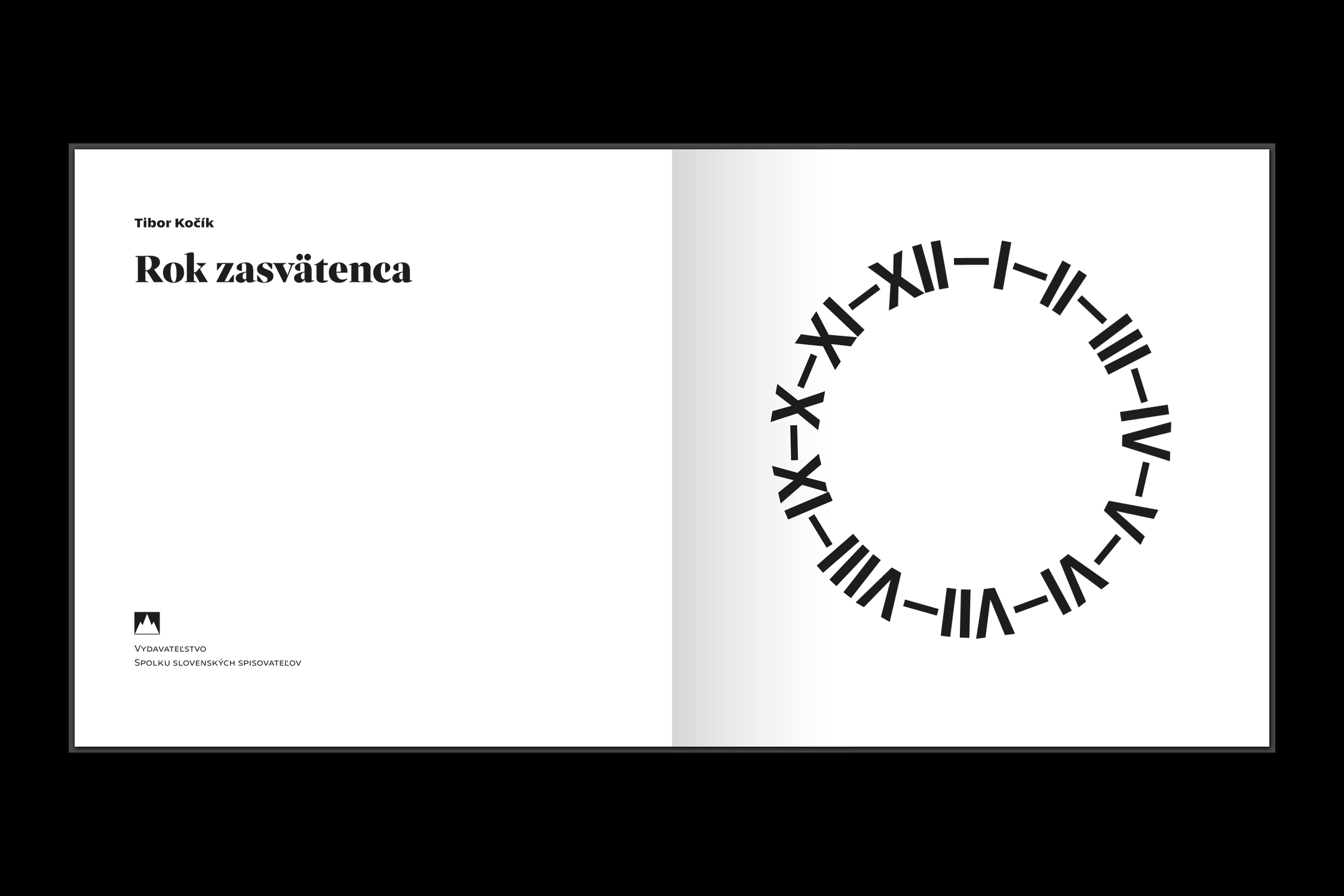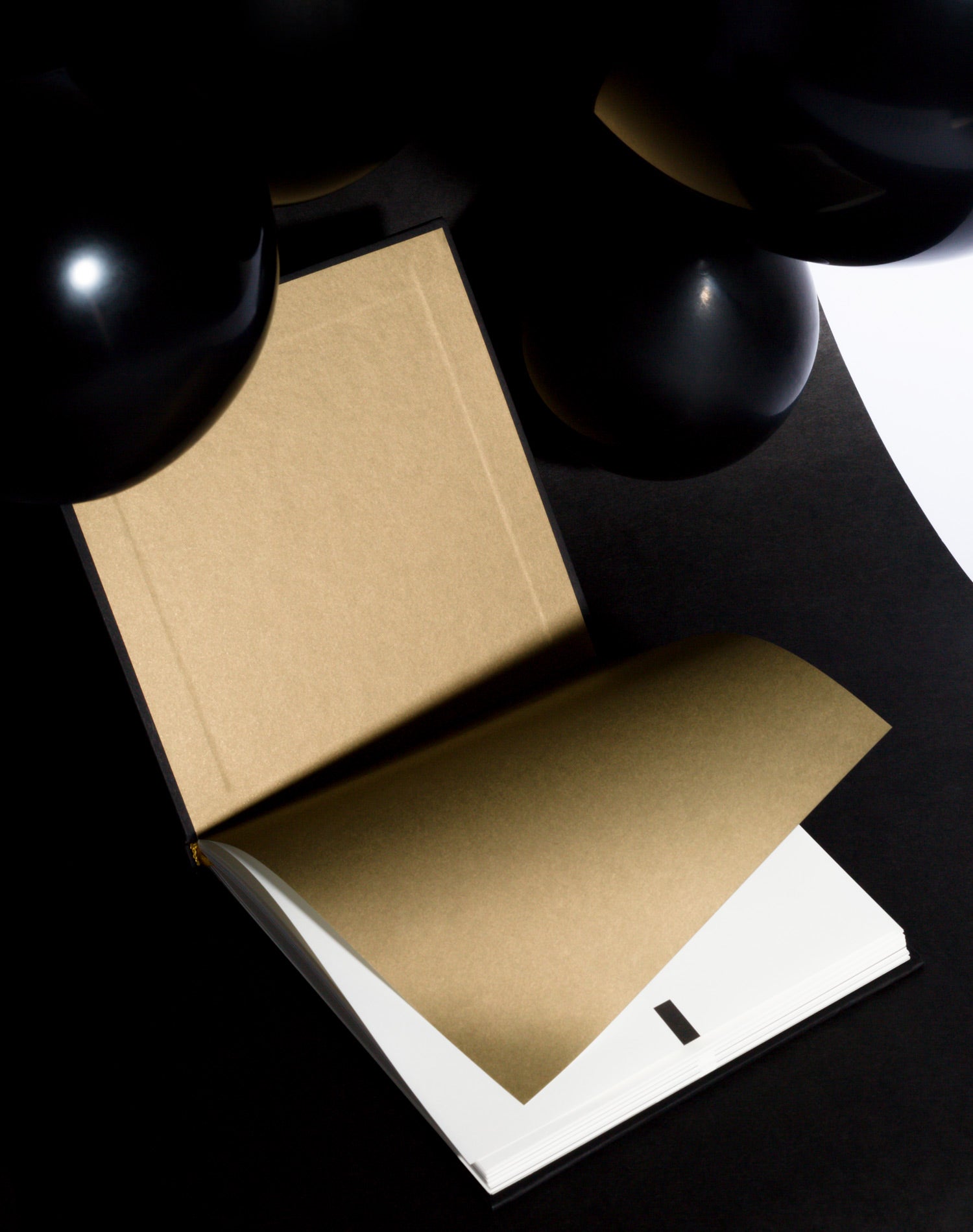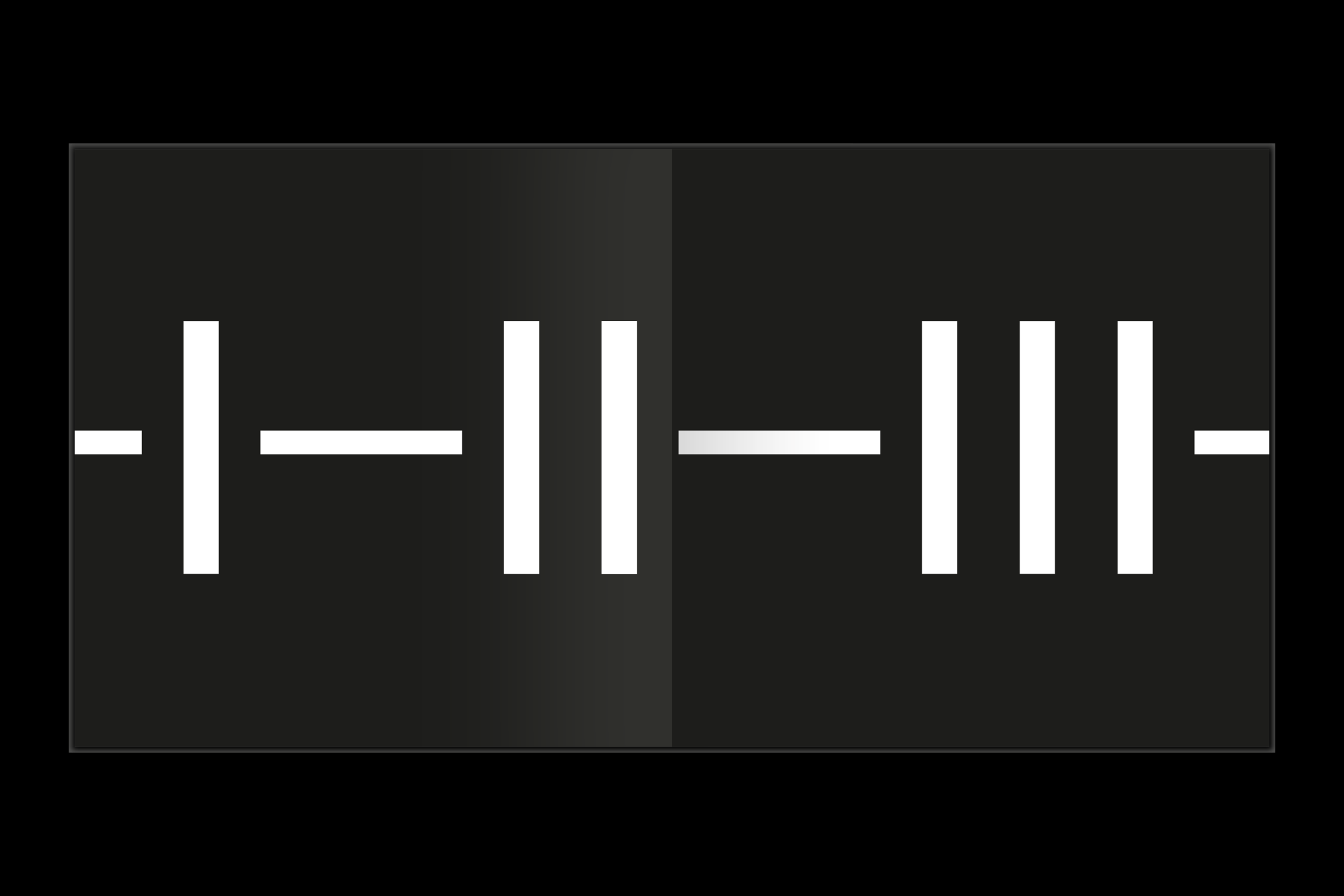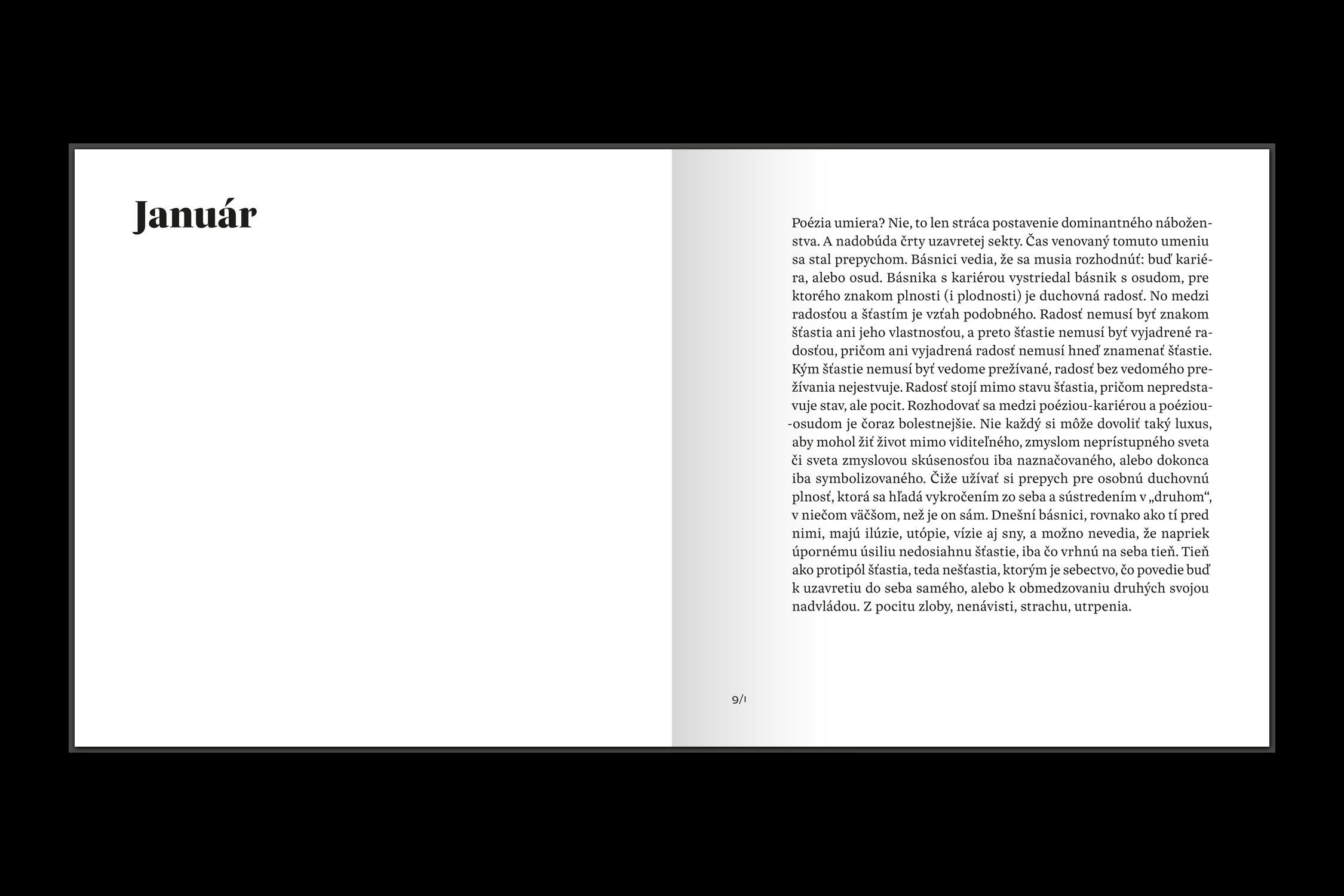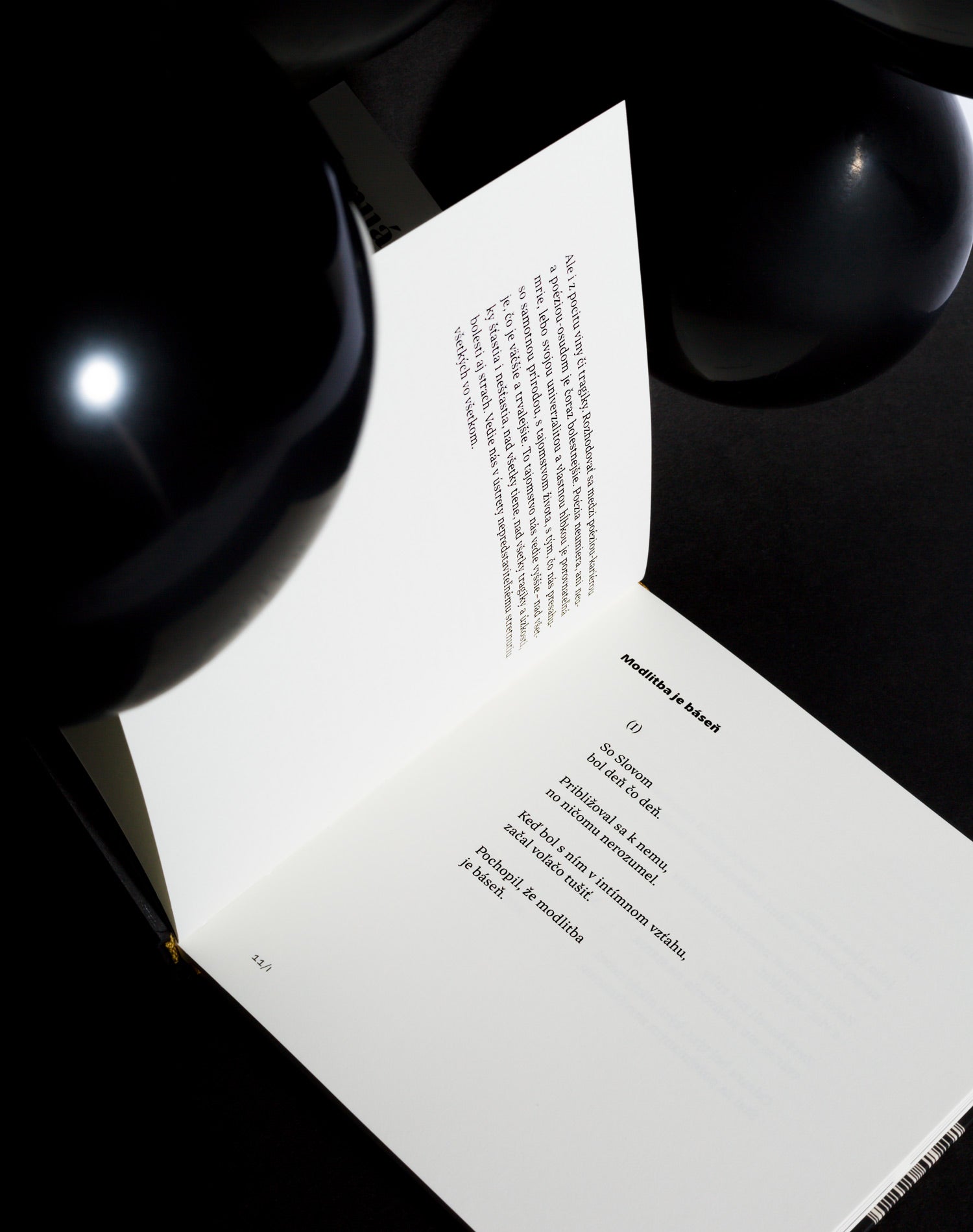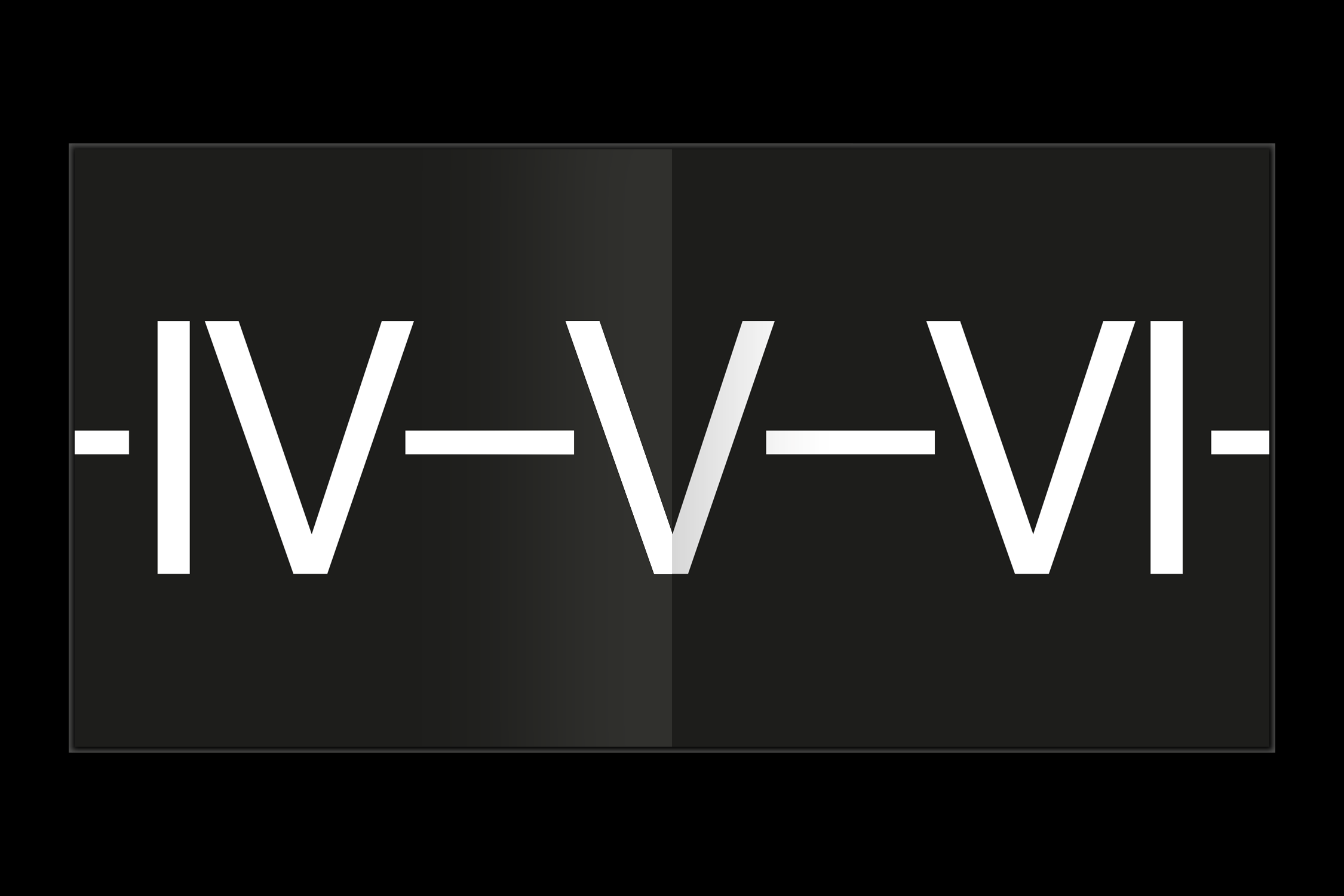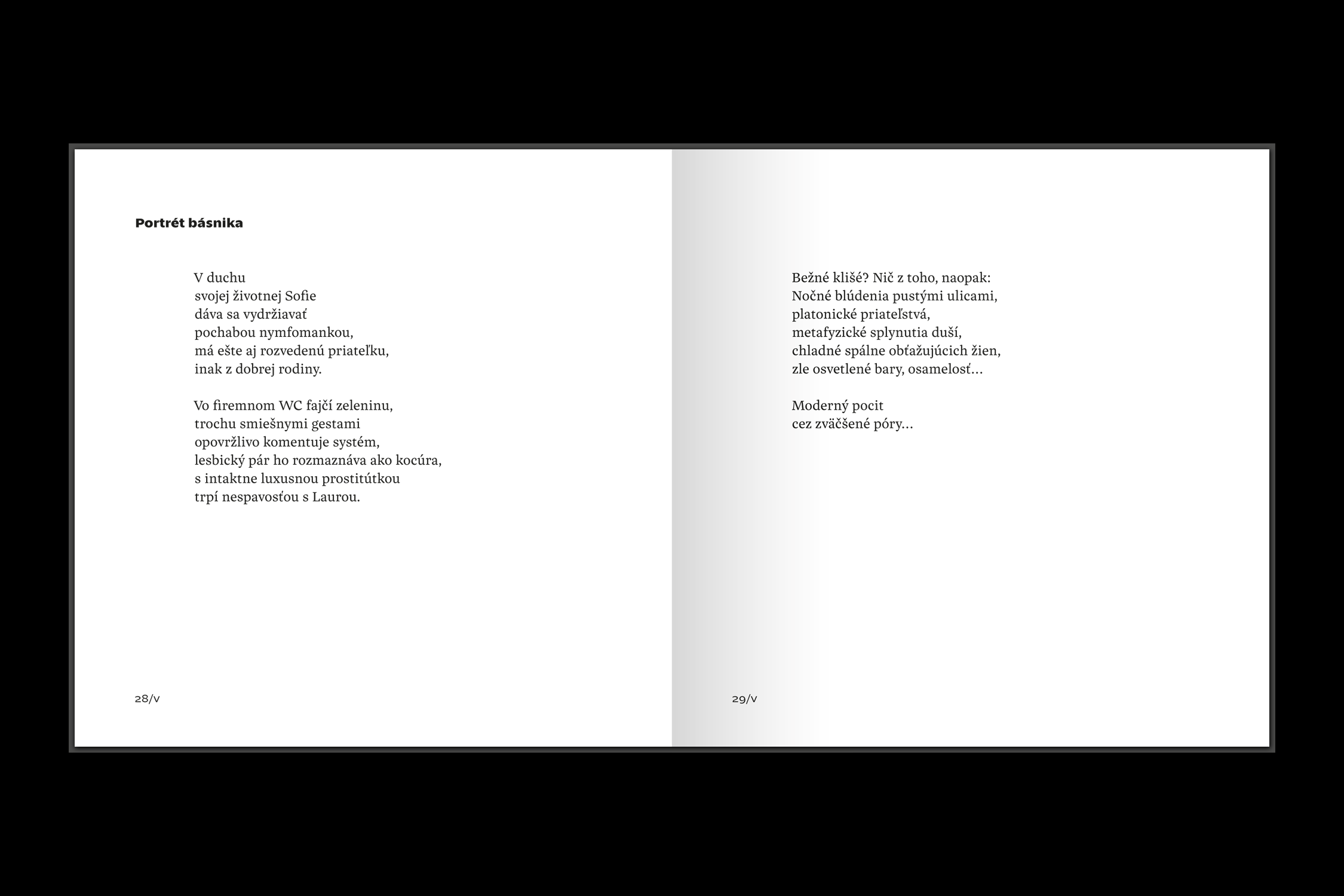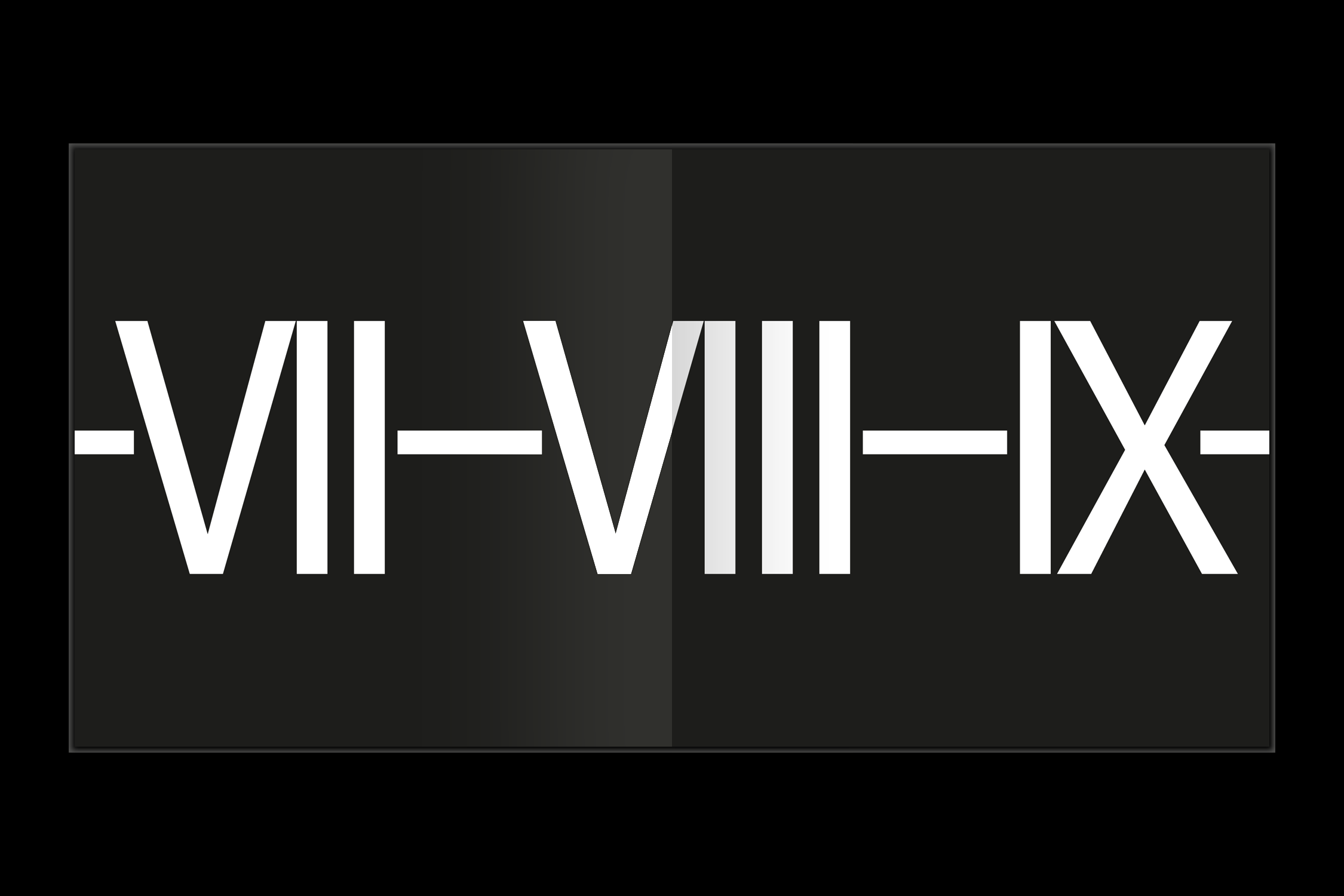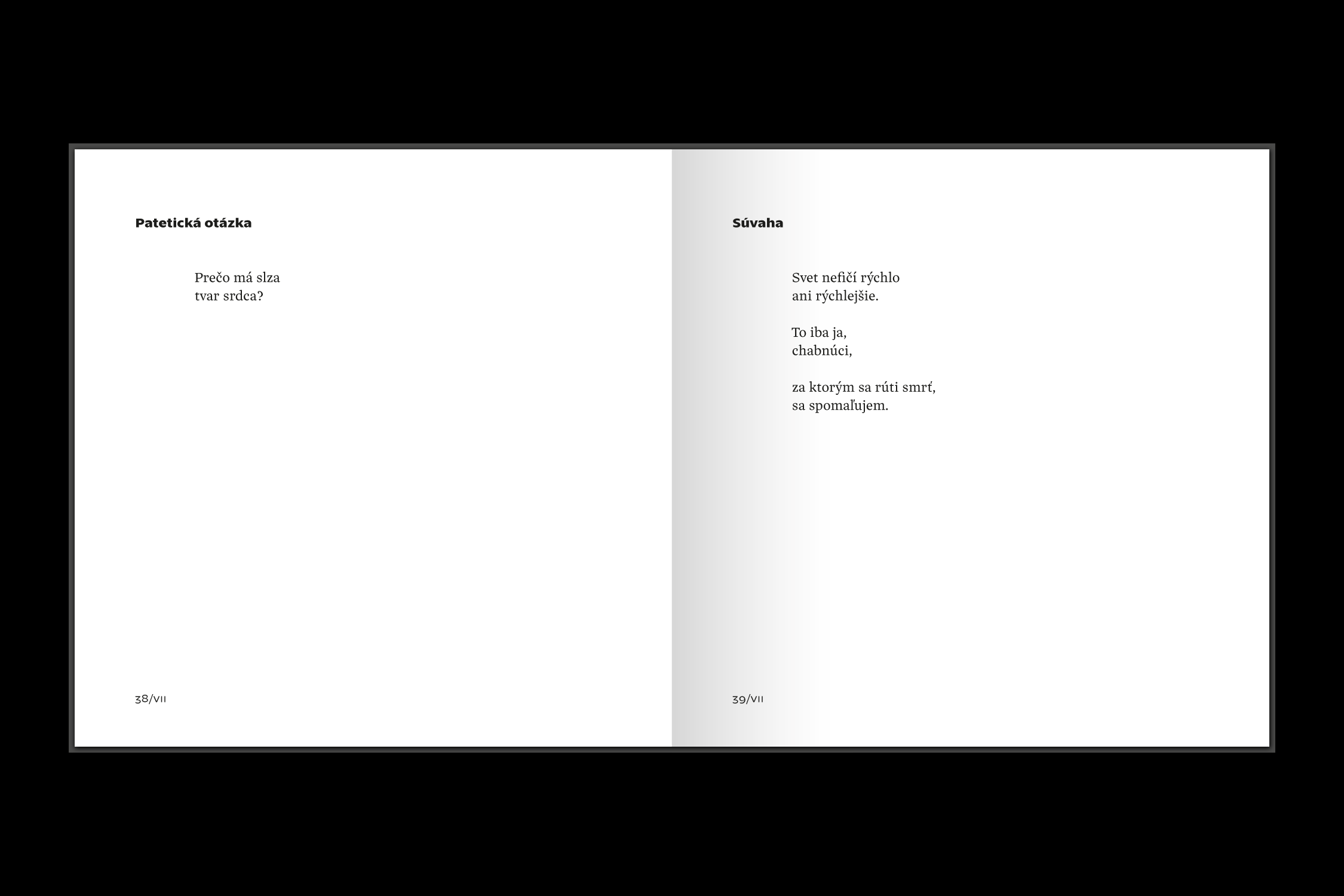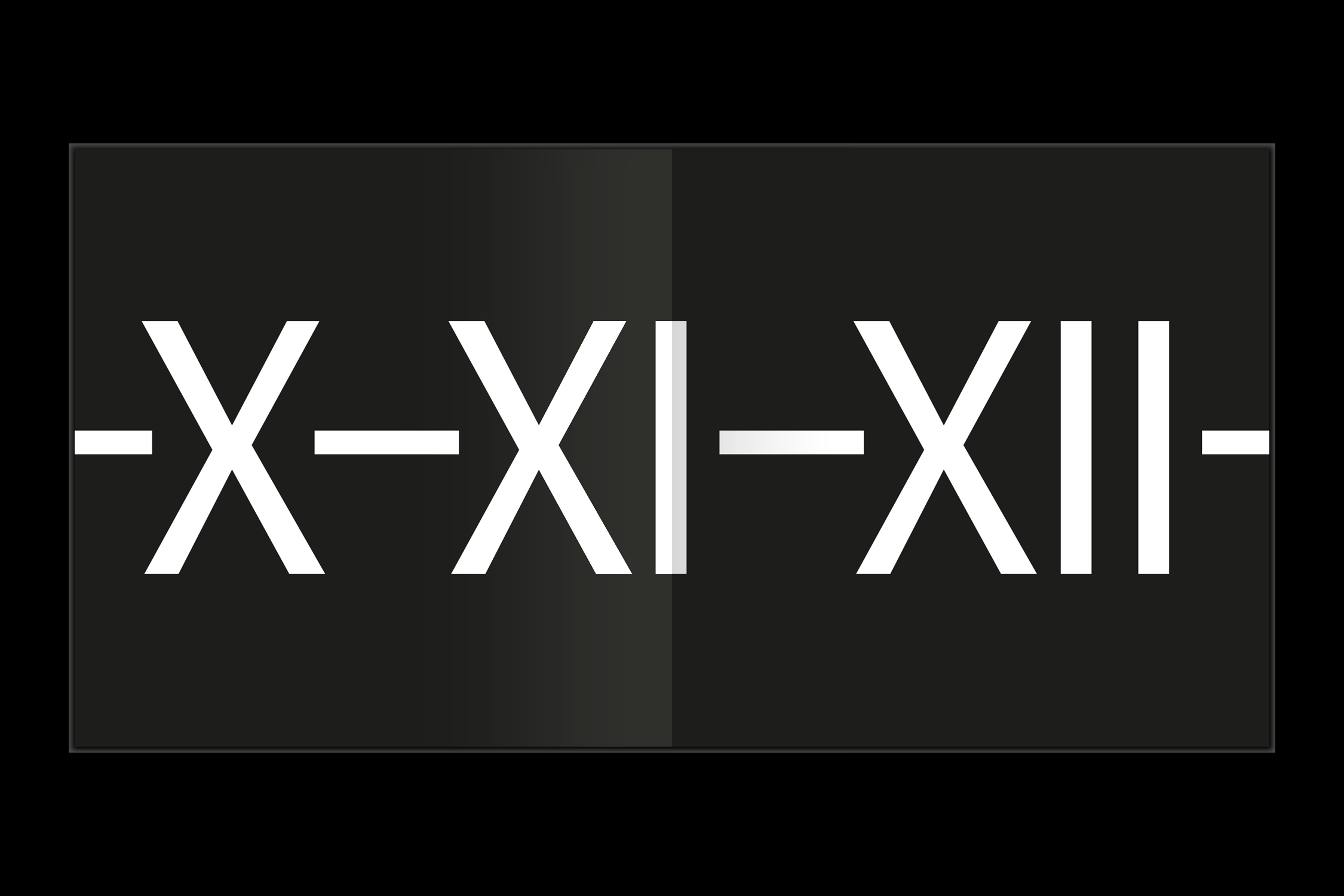
Rok zasvätenca
The Year of the Insider is a book of poetic and reflective texts by Tibor Kočík, written within a time period of almost two decades. The reflections are named after the calender months, the short but concise verses with punchline endings, visually processed by a rhytmical layout and minimalistic typographic “illustrations” convey a clear message — time flows cyclically and linearly.
Tibor Kočík: Rok zasvätenca (The Year of the Insider) • cloth binding • 150 × 150 × 10 mm • 72 pages • typefaces: Inka B Text/Display, Zin Sans Extended • published by: Vydaveteľstvo Spolku slovenských spisovateľov, Bratislava 2017 • photo credits: Diana Dobrescu • design: © Samuel Čarnoký (2017)